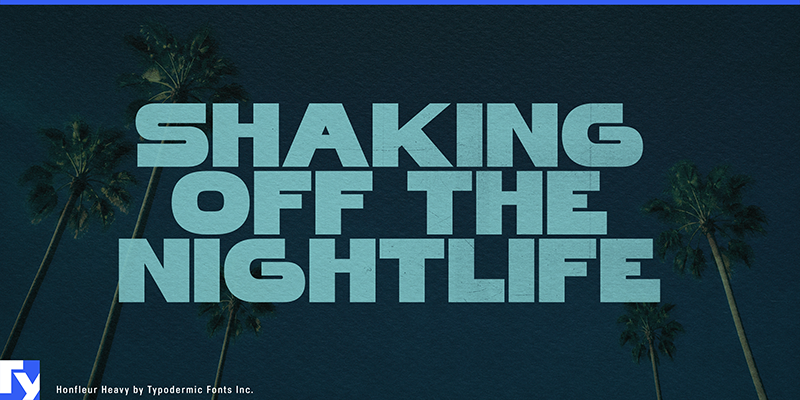
Honfleur
Honfleur is a wide, geometric display typeface with a calm, confident presence. Inspired by 1930s elegance, it combines clean structure with softened corners and open forms, giving it a refined, modern feel without stiffness. Designed for impact without aggression, Honfleur works beautifully in headlines, signage, packaging, and editorial layouts—anywhere you want sophistication with breathing room. These fonts include a license that allows free commercial use: sometimes referred to as a desktop license. This allows you to install the fonts on a computer and use them to create posters, web graphics, game graphics, t-shirts, videos, signs, logos and more. Read the license agreement for details. If you'd like to embed this font in an app, on the web or anything that's not covered by the desktop license agreement, visit the link below. You'll find distributors who offer different types of licenses, or you can contact me for help. https://typodermicfonts.com/honfleur/ These free fonts are part of a larger font family. Check out the rest of the family through the link above.
Honfleur illustration